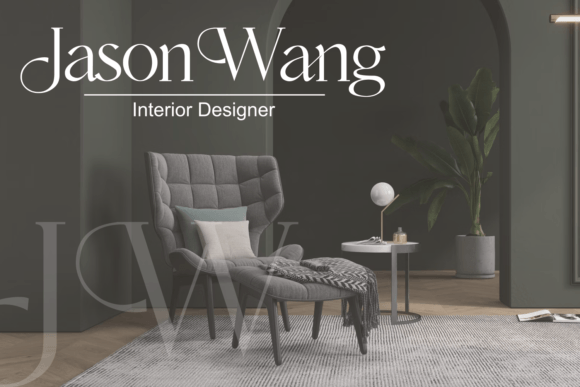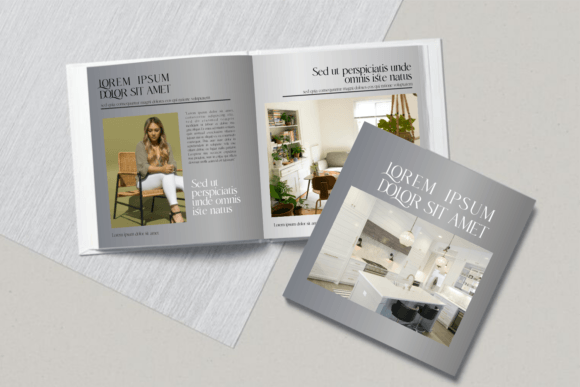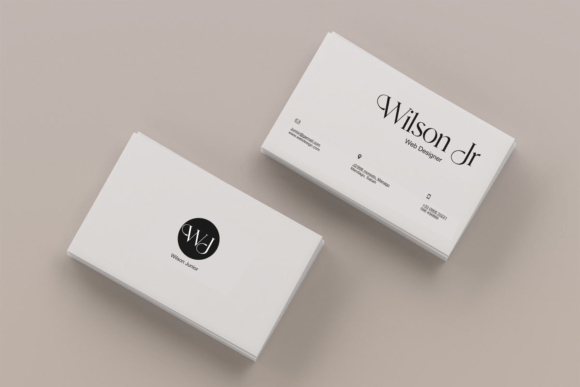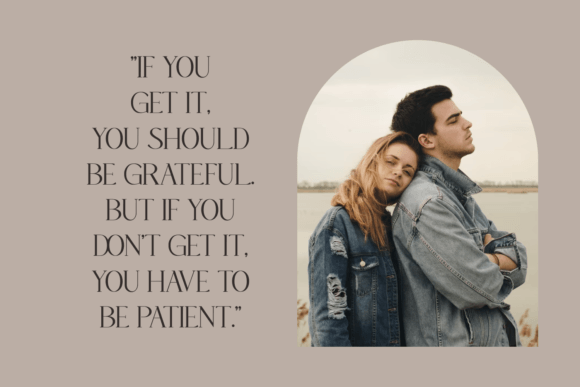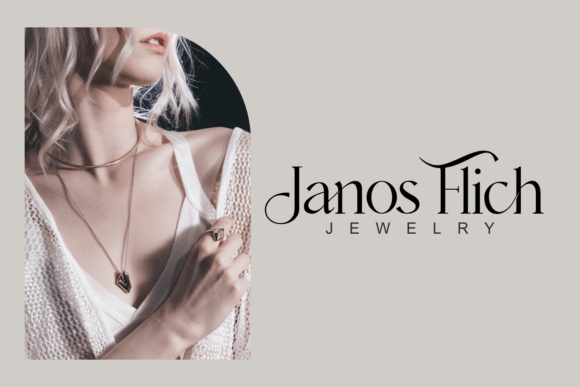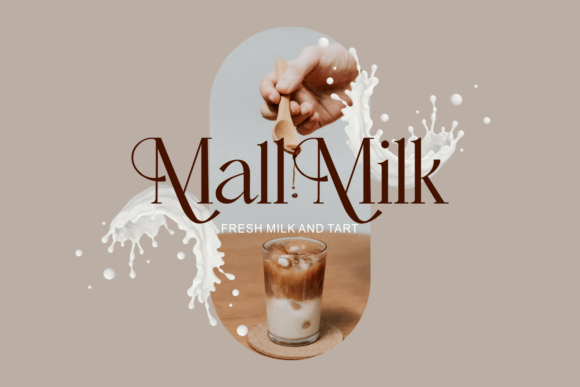
Introduction to Qonitta Font
Qonitta is a beautiful and elegant serif font with a strong character.
With the addition of ligatures and alternates, this typeface can make your typography truly unique This font is PUA encoded, which means you can access all of the glyphs and swashes with ease.